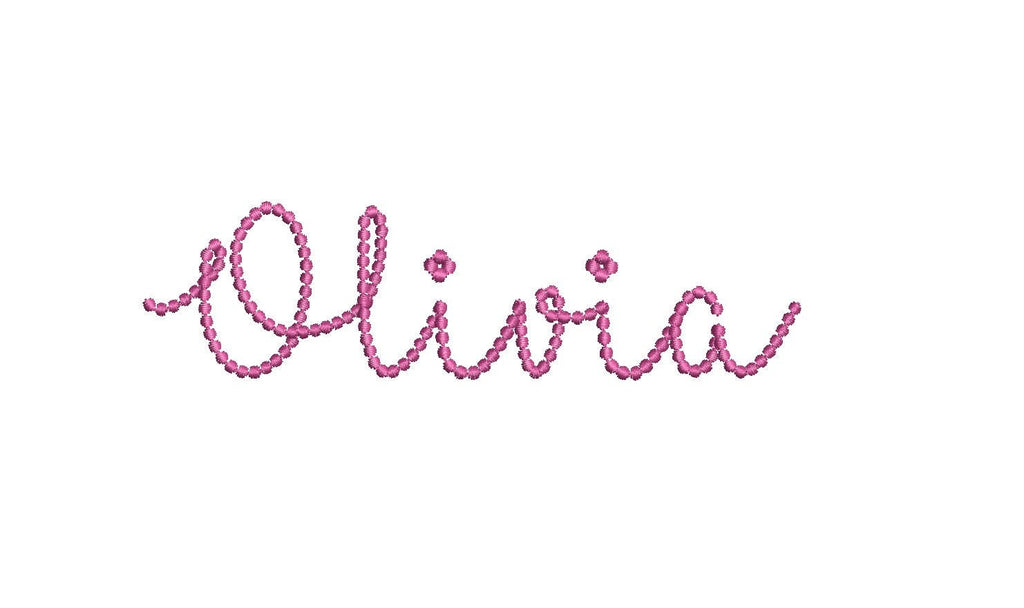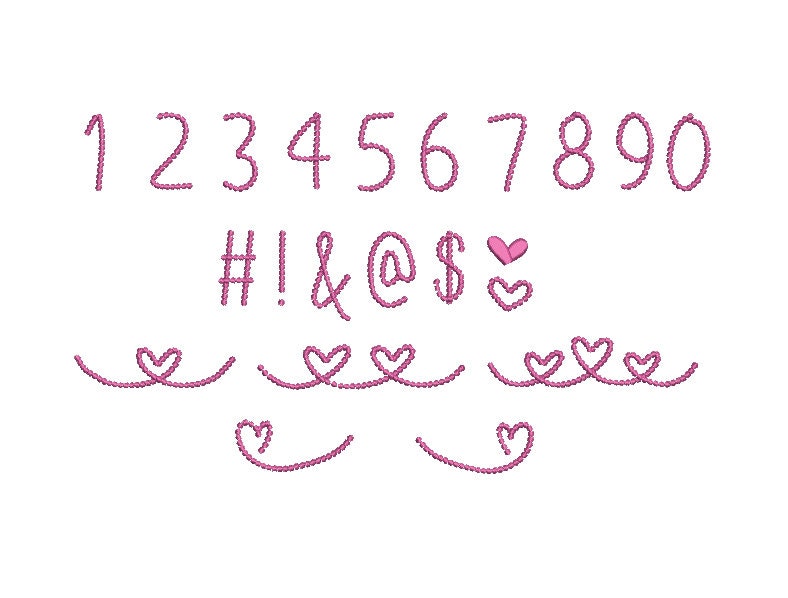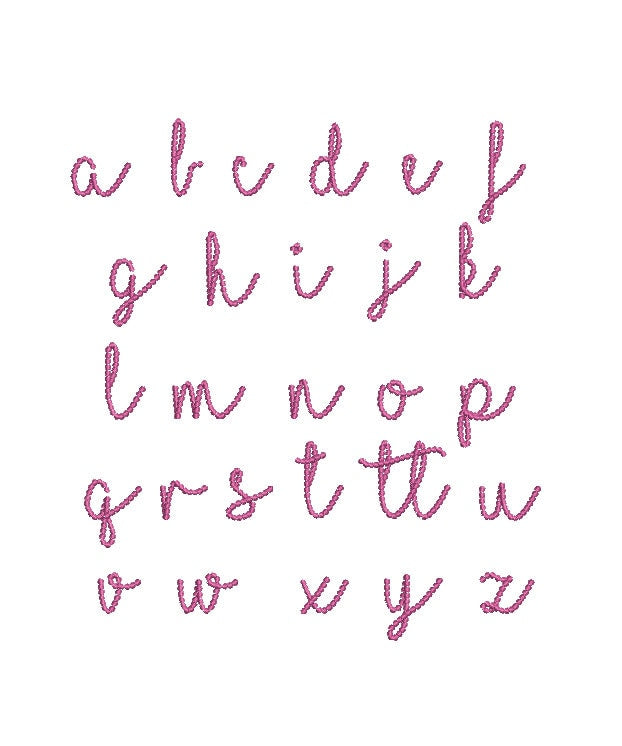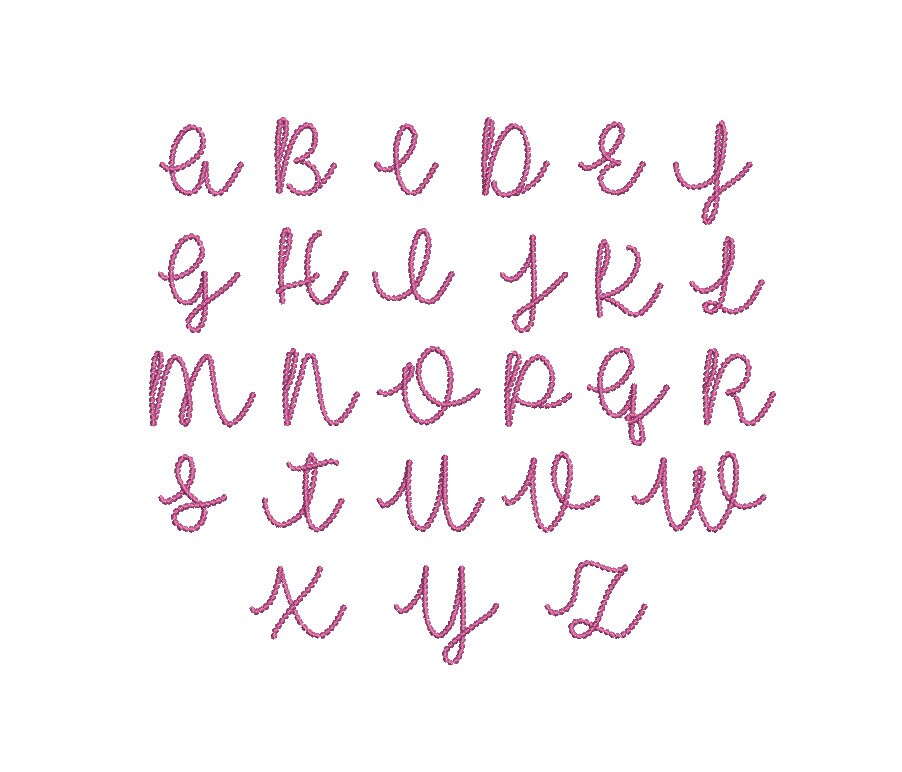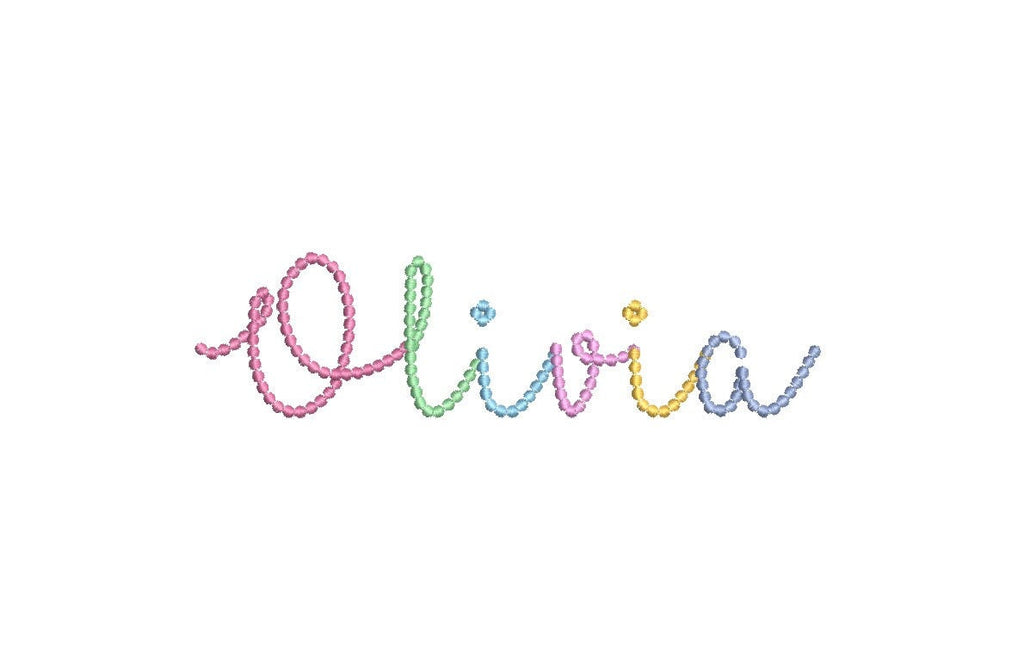
This is a DIGITAL instant download only of a Script pearl/beaded font machine embroidery design offered in 5 sizes, 8 machine formats and now in BX (extra glyphs or BX users are provided in PES files). Crazy cute and perfect for embroidering on just about anything a girlie girl could want!